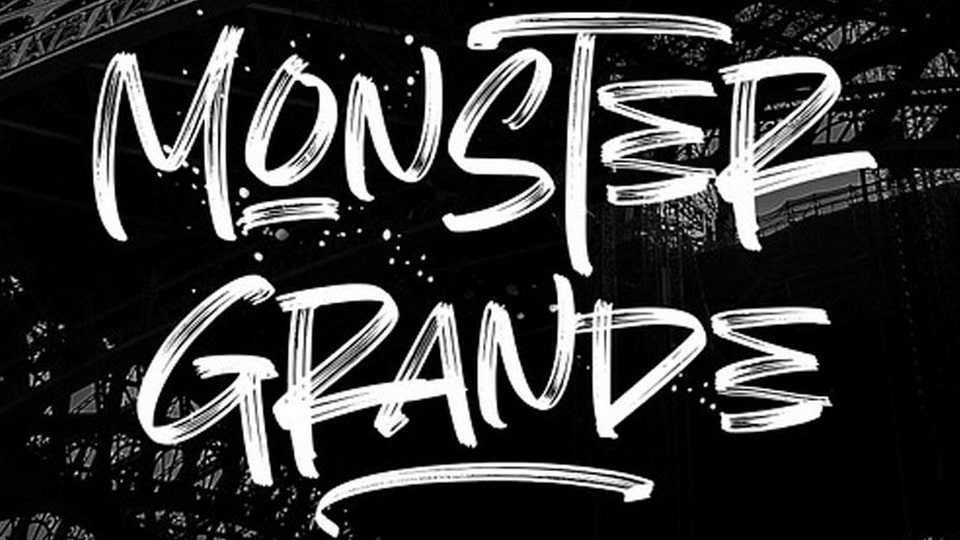
Download Monster Grande font, an assertive, hand-drawn typeface with an impressive texture. Combining urban style and a dry marker effect, this all-caps font imparts an energetic and trendy look.